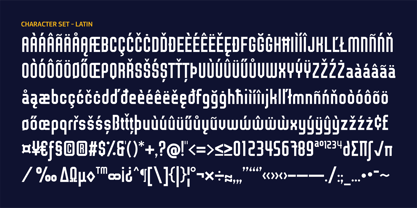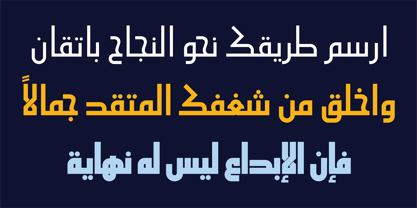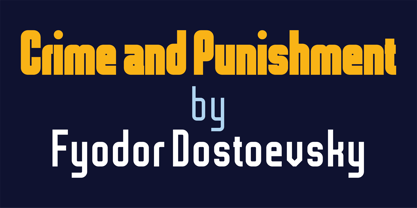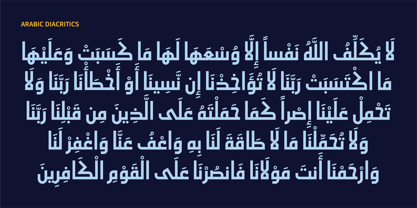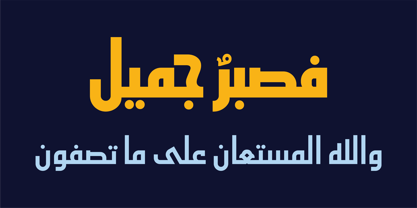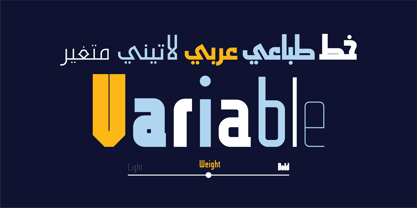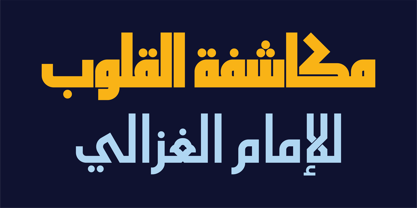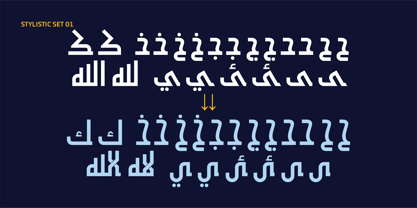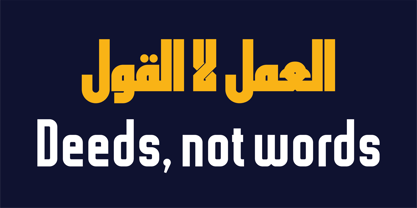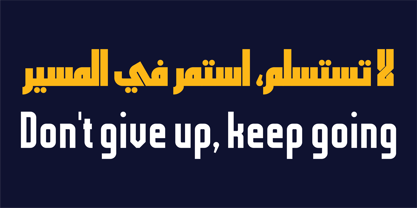
HS Core
Die Schriftfamilie HS Core wurde von Hasan Abu Afash entworfen und von Hiba Studio veröffentlicht. HS Core enthält 11 Stile und Familienpaketoptionen. Mehr über diese Familie
HS Core - The Structure of Fatimid Kufic
HS Core is a contemporary Arabic variable typeface inspired by the structural essence of Fatimid Kufic, one of the most distinctive Arabic calligraphic traditions.
Rather than recreating historical forms, HS Core explores the fundamental principles behind Fatimid Kufic: its geometric construction, balanced proportions, and the unique relationship between letterforms and space. These characteristics are transformed into a modern, versatile typographic system.
Designed with a strong architectural foundation, HS Core combines the clarity of geometric Arabic letterforms with the flexibility required for contemporary design. Its refined structure allows it to perform across a wide range of applications, from visual identities and headlines to editorial layouts, digital interfaces, and display typography.
As a variable font, HS Core provides continuous control over weight and width. The Weight axis extends from an ultra-light Hairline to a powerful Extra Black, while the Width axis offers expanded possibilities for creating different visual rhythms and compositions.
With its balance of historical inspiration and modern functionality, HS Core brings the spirit of Fatimid Kufic into a new typographic context, offering designers a distinctive Arabic typeface built for both tradition and innovation.